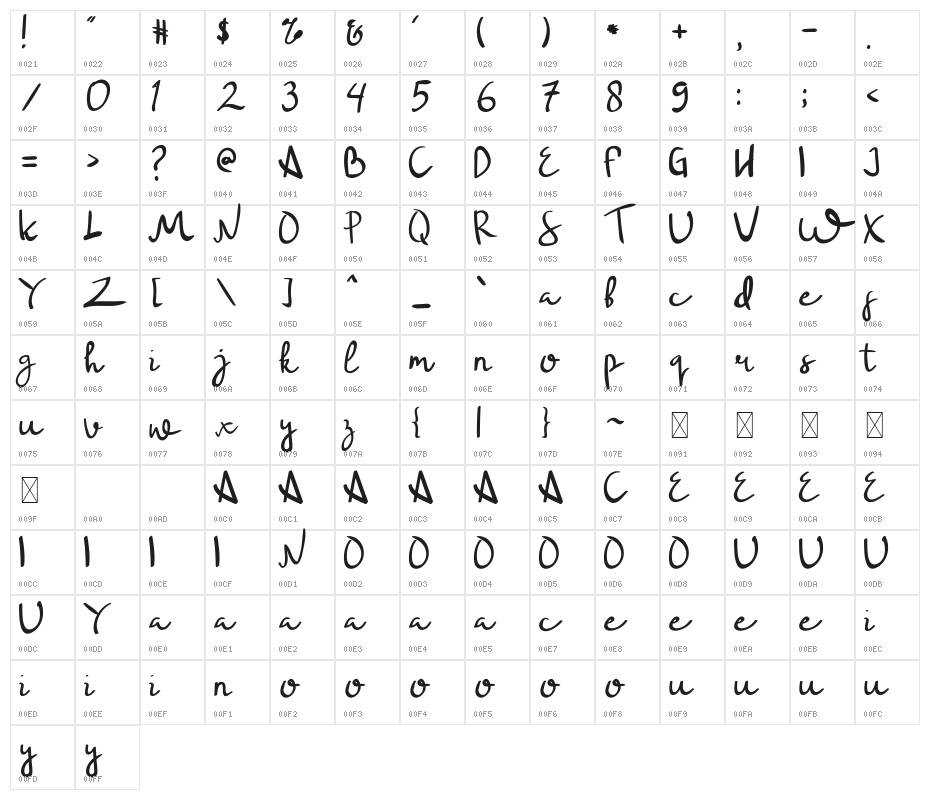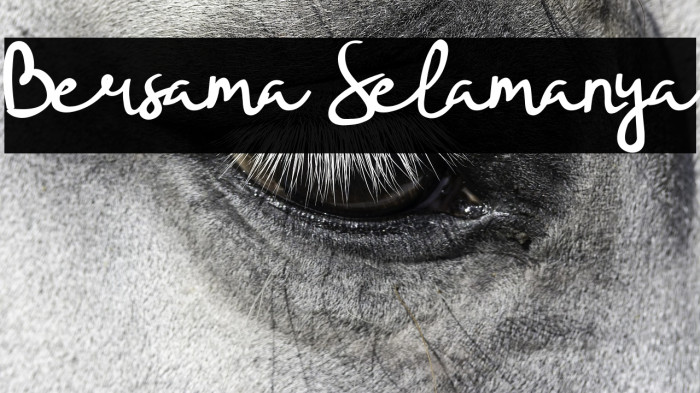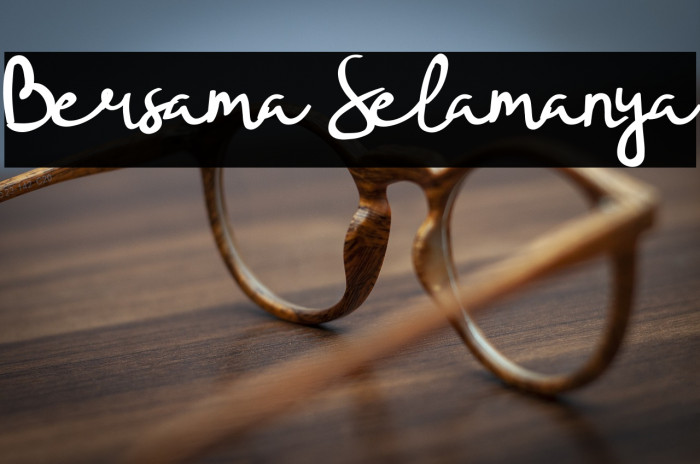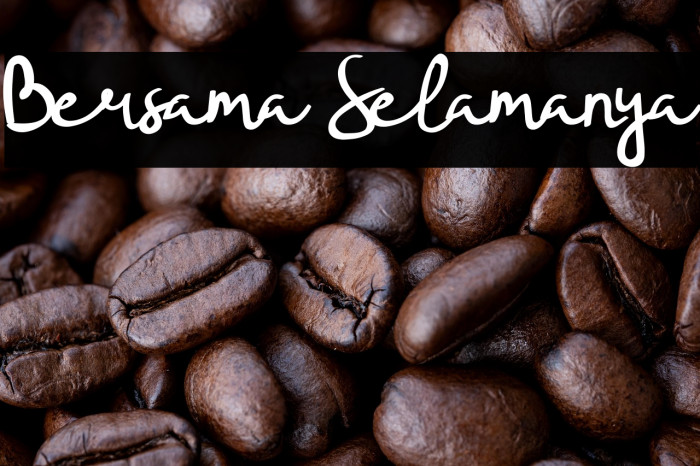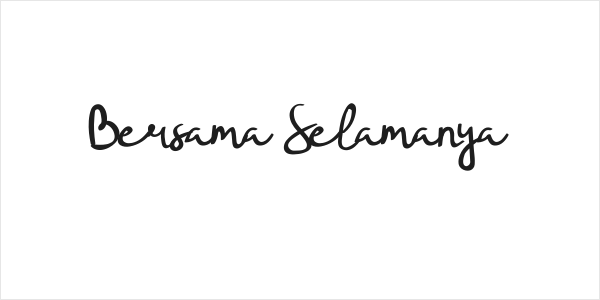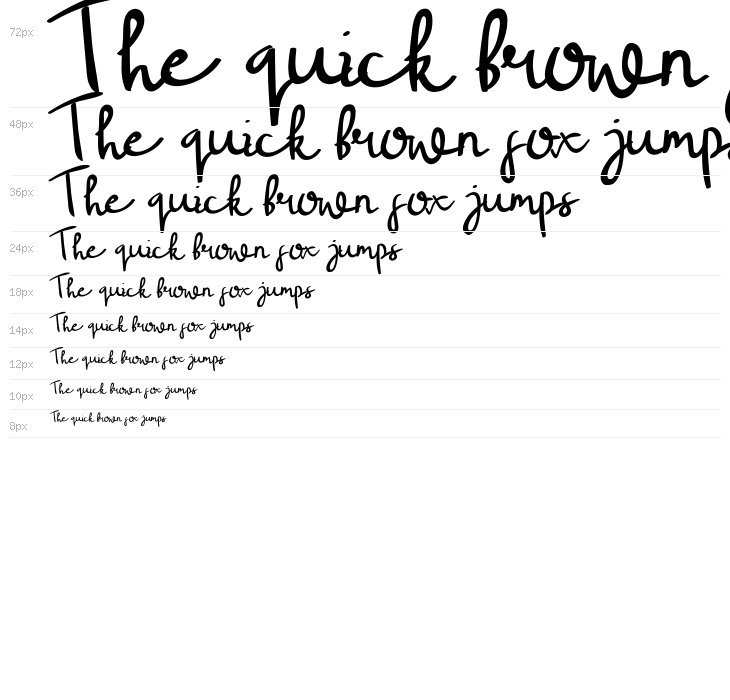
Bersama Selamanya Font
Bersama Selamanya Description
This font exudes a lively and dynamic handwritten style, characterized by its fluid and connected strokes. The uppercase letters are bold and expressive, while the lowercase letters maintain a consistent flow, enhancing the script's natural feel. Numbers and special characters are crafted with the same energetic flair, making them stand out while remaining cohesive with the overall design. The font's playful yet elegant nature makes it versatile for various creative applications.
| Proposed Projects | Ideal for wedding invitations, greeting cards, personal branding, and creative design projects that require a personal touch. |